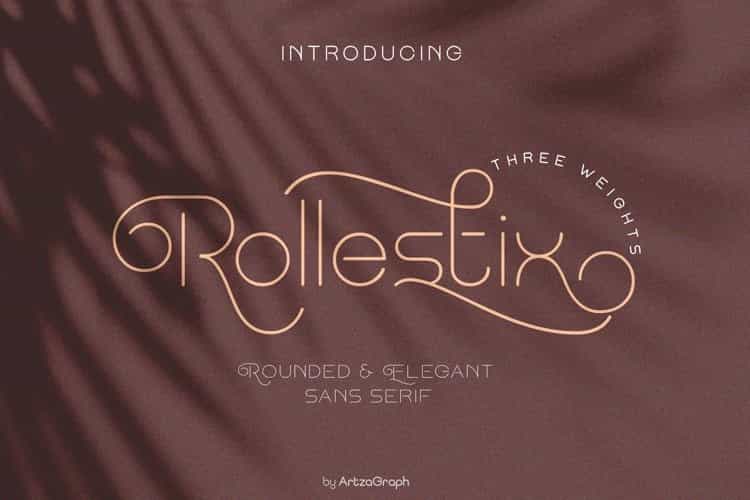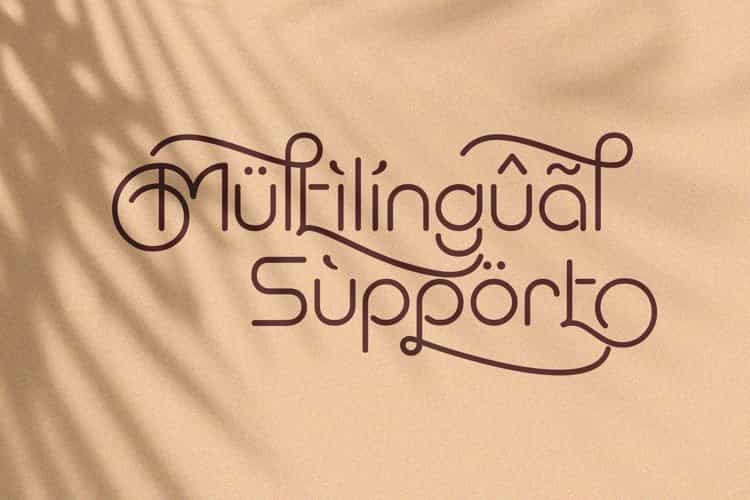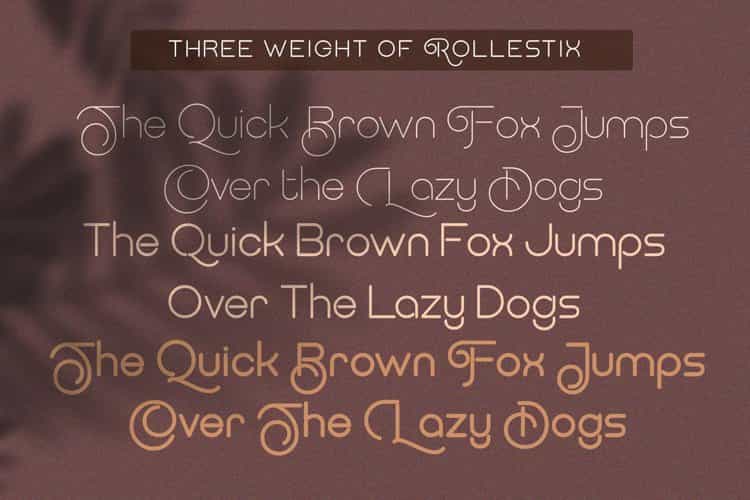
Rollestix is a modern rounded typeface that is simple in its form, soft structure and the rounded edges. Its sleek lines, smooth forms with a unique design and proportions give it the appearance of a harmonious, lively. It features a lightweight, regular, and strong weight.